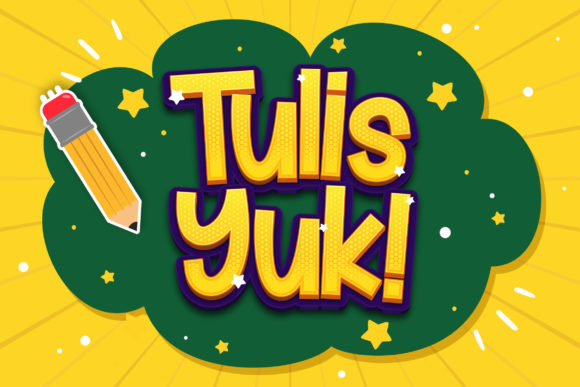
In the enchanting world of typography, there lies a font family that beckons you to embark on a creative journey — Tulis Yuk, the captivating display font that ignites imagination and brings life to your designs.
Meet Tulis Yuk, a playful and refreshing font that will dance across your screen, leaving a trail of smiles in its wake. Its enchanting curves and whimsical strokes evoke a sense of wonder and captivate the hearts of all who behold it. Allow Tulis Yuk to transport you to a realm where creativity knows no bounds and your designs come alive with vibrant strokes of color and boundless imagination.
Picture this: You're a parent or an educator, and you're looking for a font that will make your kindergarteners' learning journey more engaging and enjoyable. Look no further than Tulis Yuk, the ultimate font for tracing and creative expression. Its bold strokes and legible forms provide a sturdy foundation for little hands to follow, guiding them as they navigate the world of letters and numbers. Tulis Yuk makes learning fun, transforming each stroke into a playful dance, turning every assignment into an adventure.
Unleash your creativity and let Tulis Yuk accompany you in your most ambitious design endeavors. Its versatile nature makes it a perfect fit for a wide array of projects, from whimsical children's books and vibrant posters to eye-catching social media graphics and enchanting digital illustrations. Tulis Yuk effortlessly adds a touch of magic to your creations, leaving your audience spellbound by its charm and originality.
Welcome Tulis Yuk into your creative arsenal, and watch as it ignites a spark within you. Its playful spirit will weave its way into your designs, captivating your audience with its enchanting aura.